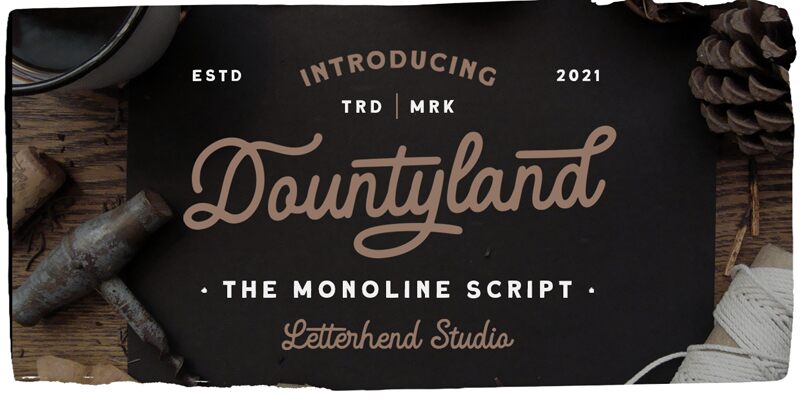
Dountyland Regular
Dountyland, the semi-light monoline script font designed by Letterhend Studio, is a perfect choice for projects that require a touch of elegance and sophistication. With its smooth and flowing lines, this font is ideal for wedding invitations, greeting cards, and branding materials. Dountyland's unique style also makes it suitable for fashion magazines, blogs, and websites. Its semi-light weight adds a delicate touch to any design while maintaining readability. Whether you're looking to create a romantic mood or add a stylish flair to your project, Dountyland is the perfect font choice.